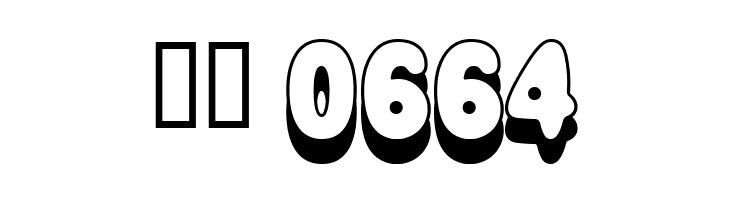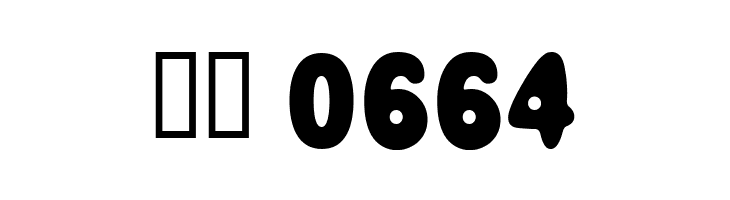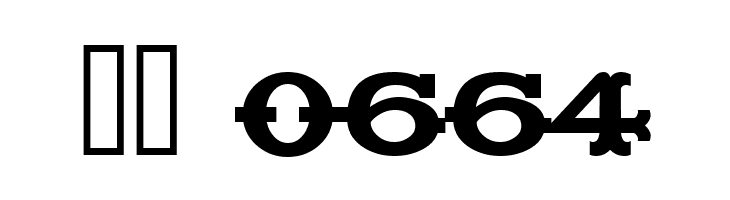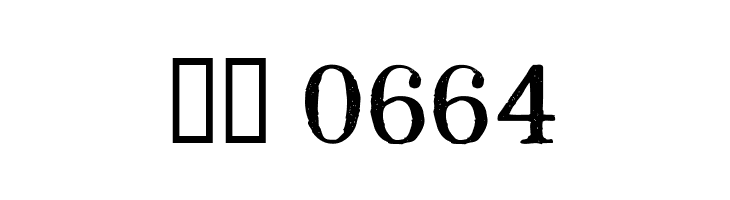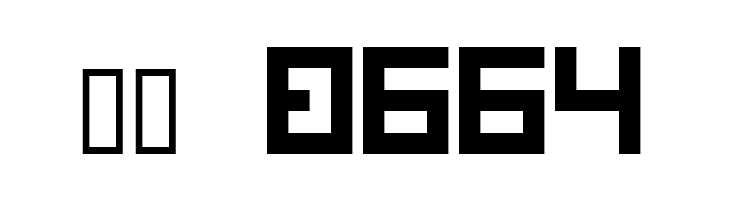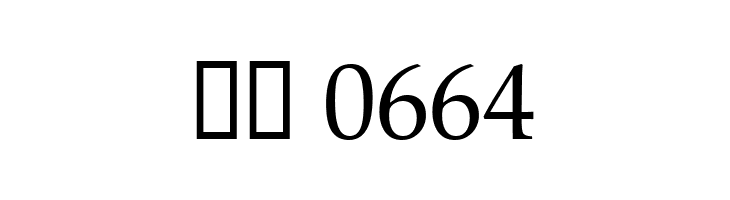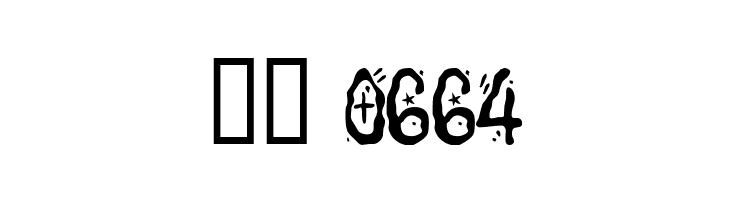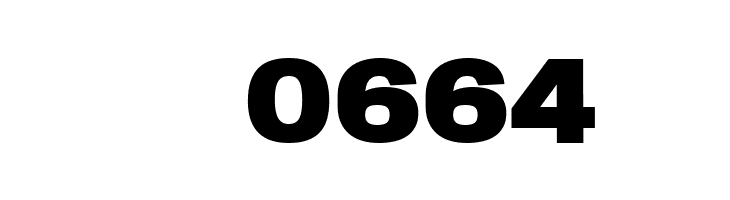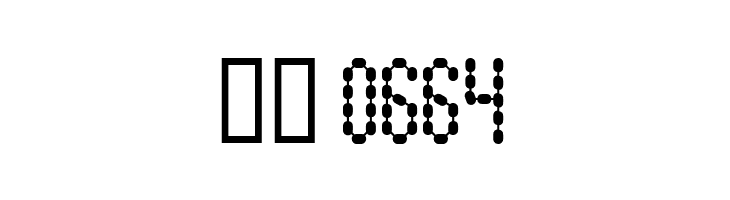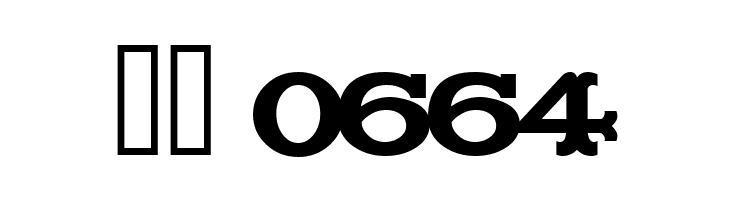
( Fonts by Sacred Nipple - Brode Vosloo )
A classic serif font with high contrast and elegant strokes.
( Fonts by Daniel Gauthier )
A playful, dot-based font with a modern, digital aesthetic.
( Fonts by Antonio Bucu - AdamAnt Designs )
A bold, high-contrast font with thick, block-like characters.
( Fonts by Utopia - www.daleharris.com )
A bold, futuristic font with sharp, angular edges and a geometric structure.
( Fonts by Harold Lohner - www.haroldsfonts.com )
A bold slab serif font with strong, uniform strokes and a modern classic appeal.
( Fonts by Harold Lohner - www.haroldsfonts.com )
A bold, decorative font with a unique bar motif across characters.
( Fonts by Harold Lohner - www.haroldsfonts.com )
A bold, decorative font with thorn-like embellishments for a unique, edgy look.
( Fonts by www.immortalgraphics.com )
A whimsical and decorative font with playful, eccentric design elements.
( Fonts by Daniel Gauthier )
A bold, jagged font with an electrifying outline, perfect for dynamic and playful designs.
( Fonts by Utopiafonts )
A bold, gothic-inspired font with sharp, angular lines and dramatic serifs.
( Fonts by Maniackers Design - www.mksd.jp OFF SITE )
A playful, bold font with rounded, blob-like characters.
( Angst )
A whimsical, playful font with rounded, elongated letterforms.
( K-Type Freebies (Free for Personal Use Only) FROM http://www.k-type.com )
A playful, bold font with rounded, bubbly characters.
( K-Type Freebies (Free for Personal Use Only) FROM http://www.k-type.com )
A bold, playful font with a three-dimensional outline and shadow effect.
( Fonts by Daniel Gauthier )
Comic-style dingbat font with vintage magic illustrations.
( Fonts by Daniel Gauthier )
Comic-style illustrated font with unique scenes in each character.
( Fonts by www.fontalicious.com )
A bold, rounded font with a vintage yet modern appeal.
( Fonts by Levi Halmos )
A bold, angular serif font with a medieval flair.
( Fonts by Antonio Bucu - AdamAnt Designs )
A sleek, modern font with tall, narrow characters and high contrast strokes.
( K-Type Freebies (Free for Personal Use Only) FROM http://www.k-type.com )
A distressed, vintage serif font with a rubber stamp texture.